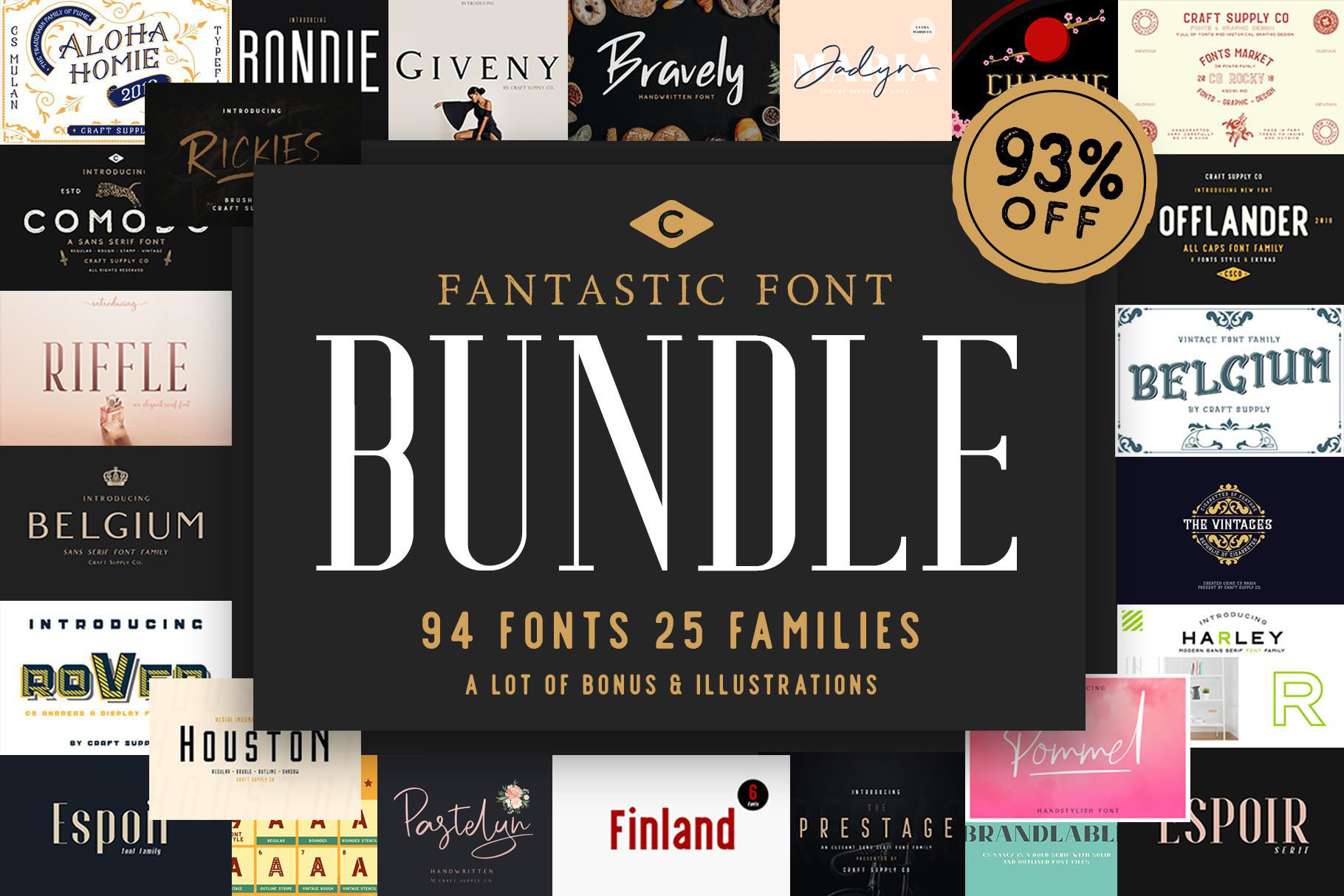
This bundle includes 25 font families 90 fonts (Serif, Sans Serif & Display) & 100+ (illustrations, labels, & badges). This bundle is a terrific toolbox for display purposes. It would be a perfect choice to design posters, headings, letterhead, merchandise, logos, t-shirts, magazine, banner, and many more.
Also suitable for happening style like handdrawn design, craft design, any DIY project, book title, wedding font, pop vintage design, retro design or any purpose to make your art / design project look pretty and trendy.
The Fonts :
- Upper Case & Lowercase